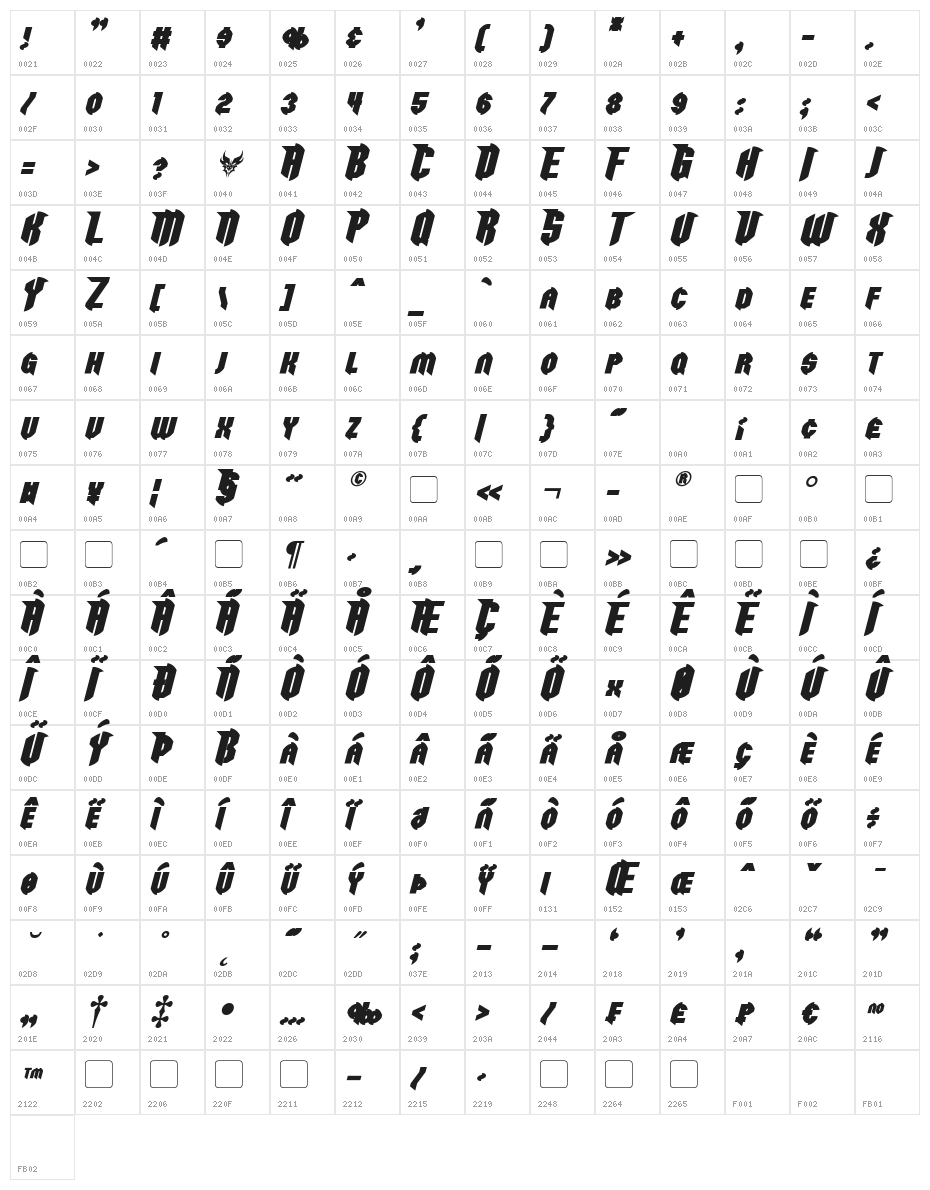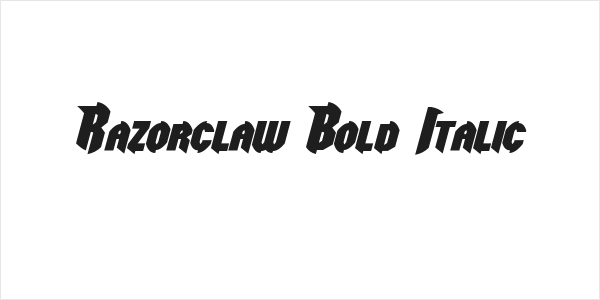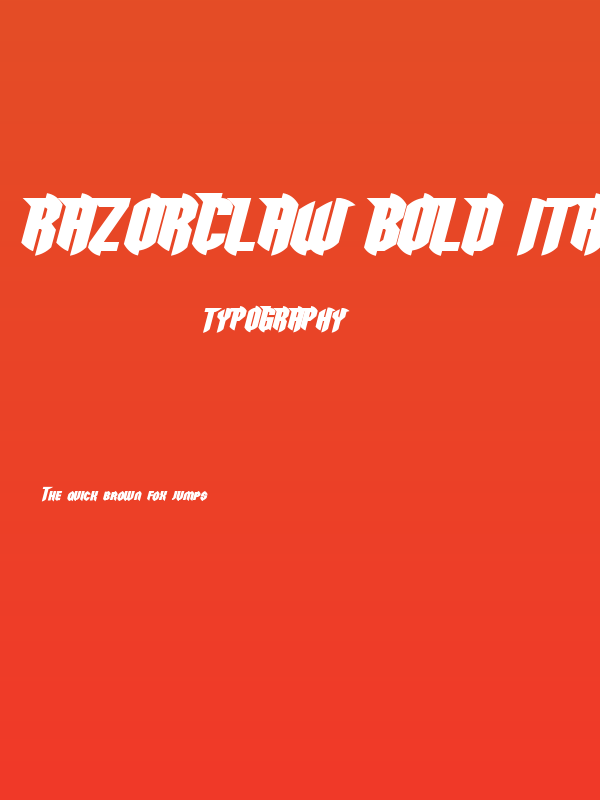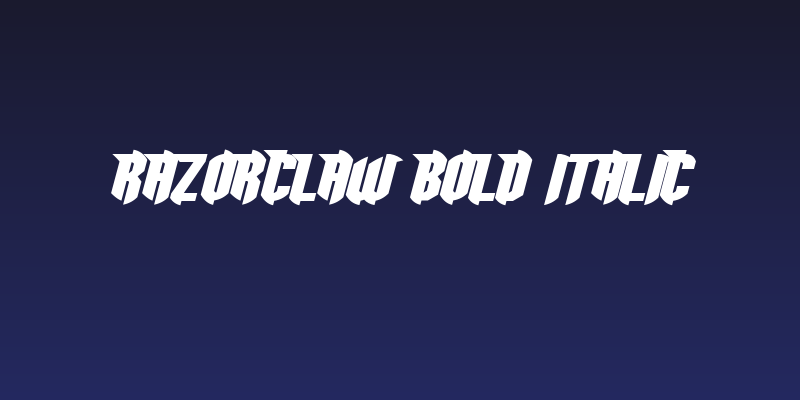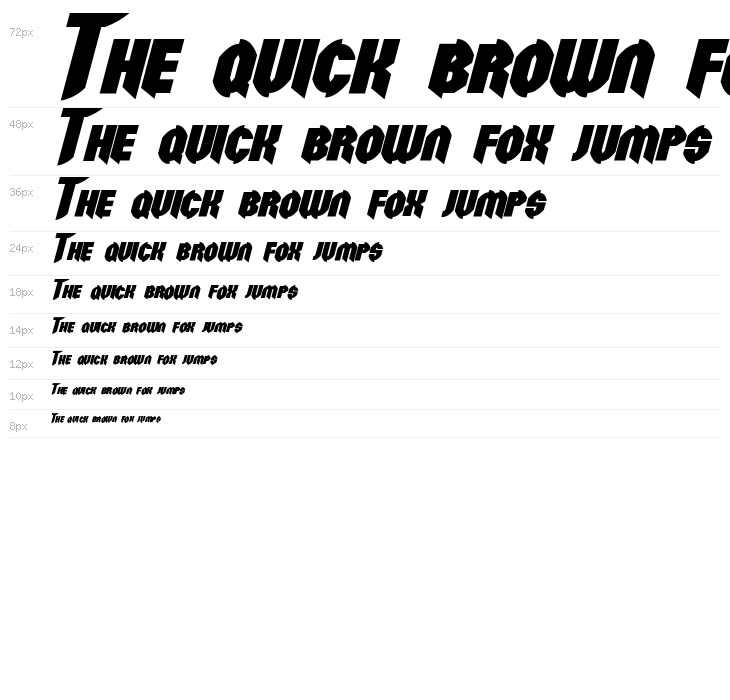
Razorclaw Bold Italic Font
Razorclaw Bold Italic Description
This font features a bold and italicized style with sharp, angular edges that give it a fierce and dynamic appearance. The uppercase and lowercase letters maintain a consistent slant, enhancing the italic effect. The numbers and special characters follow the same bold and aggressive design, making them stand out prominently. The strokes are thick, providing a strong visual impact, while the character spacing is tight, contributing to its compact and powerful look. This font is ideal for projects that require a bold statement or an edgy, modern aesthetic.
| Proposed Projects | Ideal for branding, logos, sports team merchandise, video game titles, and posters. |